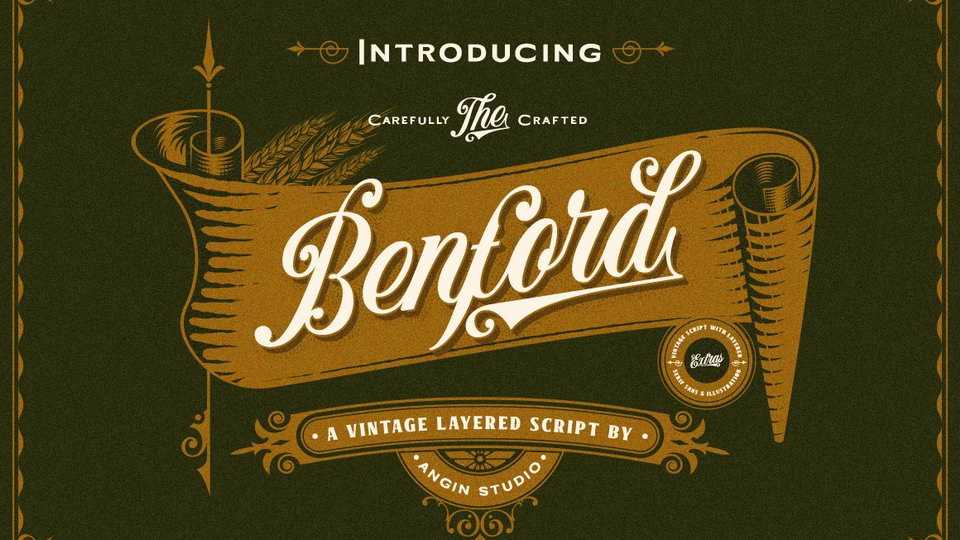
Benford Script Font › Fontesk – Fonte Grátis
Download Benford font, a decorative vintage script, inspired from old fashion script, Vintage beer labels, Ephemera and Old packaging. Bendford font is perfect for logotype, branding, packaging, apparel and more.
Designer: Angin Studio